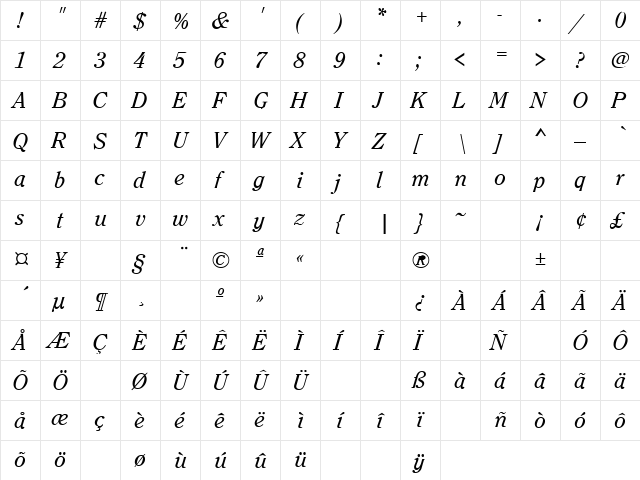
Devil's Night 2 Regular
Devil's Night 2 offers clean, dependable letterforms without strong stylistic allegiance, making it a practical choice for designers who need flexibility.